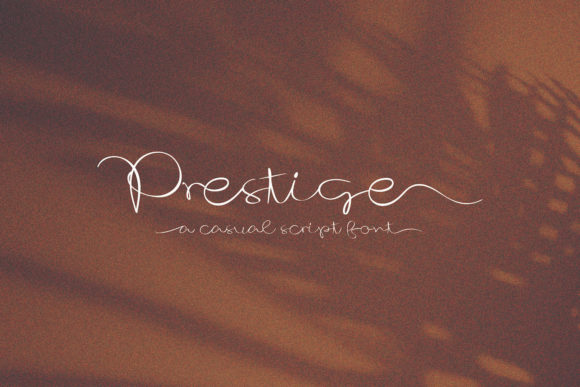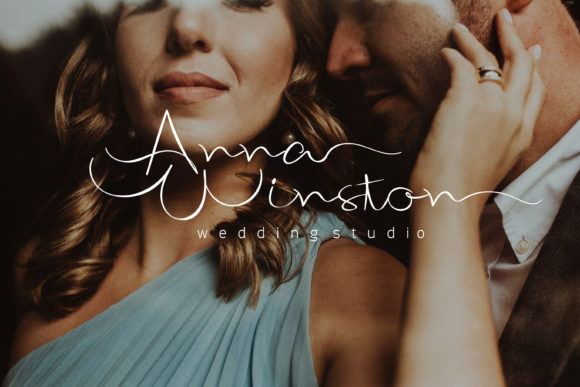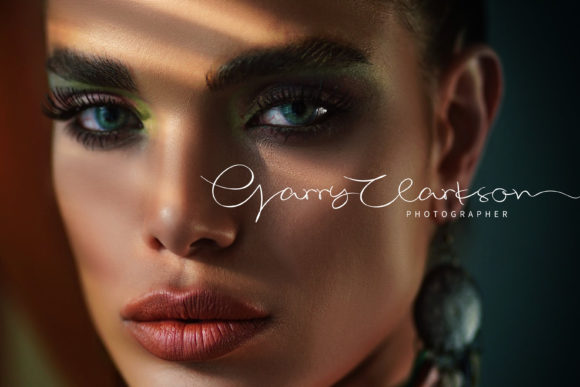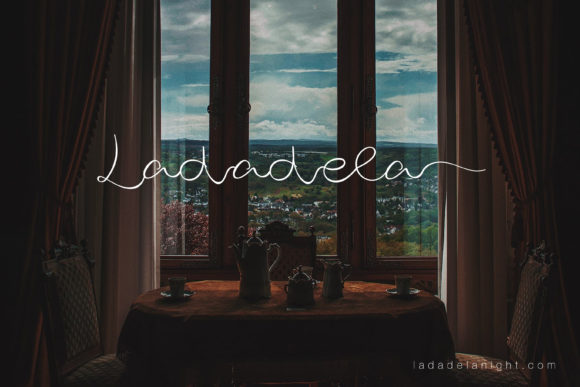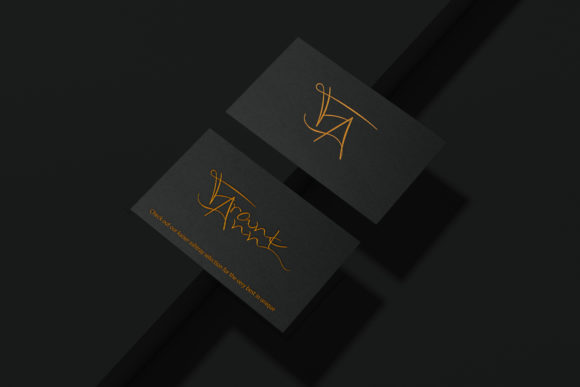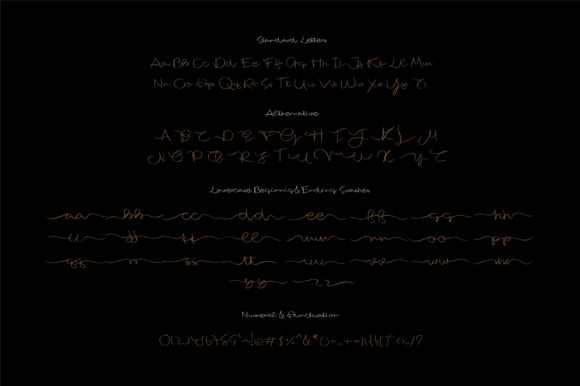
Prestige Font
About Prestige Font
Prestige is a beautiful and modern script font. Thin lettered and trendy, this font will brighten up each of your design ideas. Fall in love with its incredibly versatile style and use it to create spectacular designs!